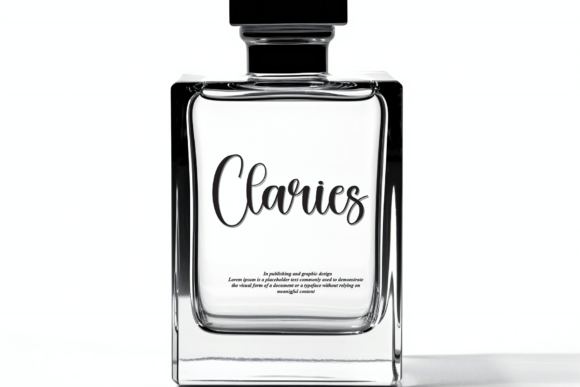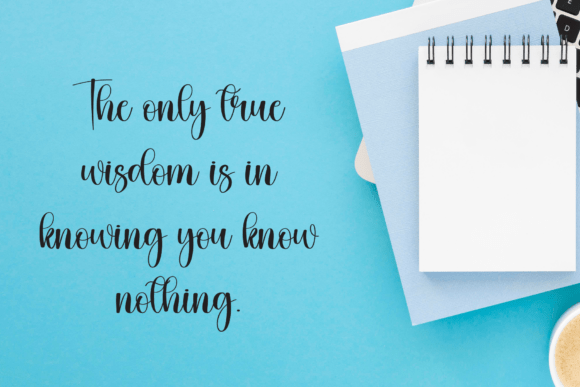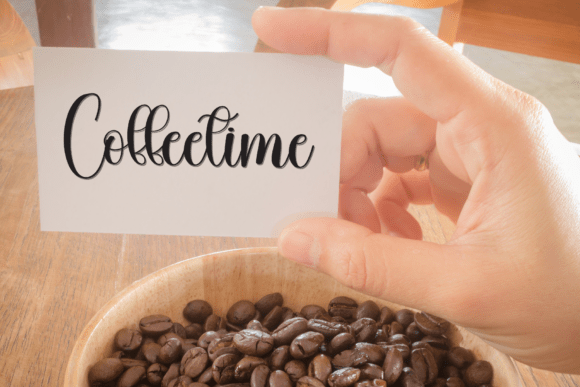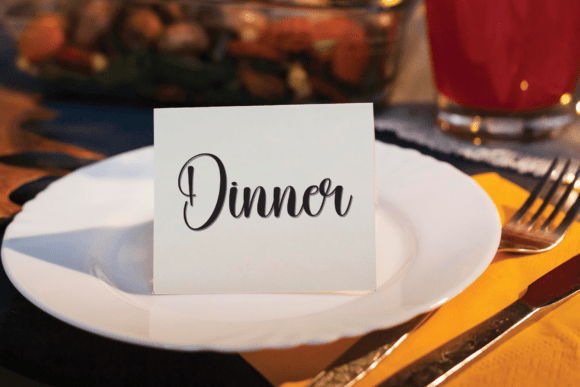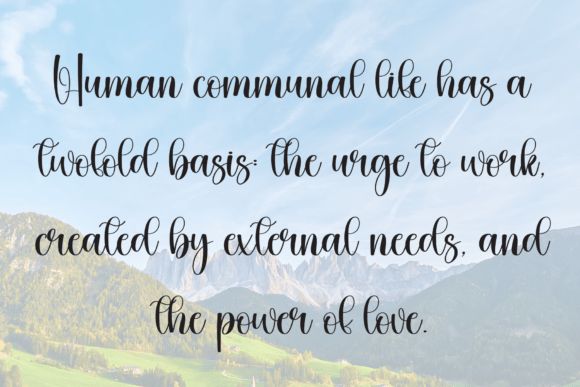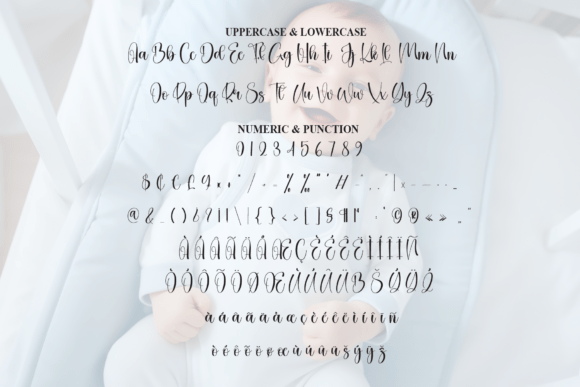
Babyboy Font: A Charming Script Font for Modern Design
In the world of typography, few fonts capture the essence of warmth and modernity as beautifully as the Babyboy Font. This charming script font is designed to evoke a sense of joyful visual movement, making it perfect for a variety of creative projects. In this article, we’ll explore the unique characteristics of the Babyboy Font, its uses, and why it’s a premier choice for designers and crafters.
The Characteristics of Babyboy Font
The Babyboy Font is a stunning example of modern calligraphy. Its thick, grounded strokes and bouncy baseline create a sense of energy and playfulness, making it ideal for designs that require a touch of whimsy. The font’s defining feature is its expansive, looping flourishes that add a level of sophistication and elegance to any design. Additionally, the stylized “drop shadow” effect provides immediate visual depth, making the font stand out in any project.
Uses of Babyboy Font
The Babyboy Font is incredibly versatile and can be used in a variety of creative projects. Some of the most popular uses include:
- Nursery Wall Art: Create beautiful and personalized nursery wall art with the Babyboy Font. The font’s playful and whimsical nature makes it perfect for baby’s name, quotes, and other decorative elements.
- Boutique Baby Product Branding: The Babyboy Font is a great choice for boutique baby product branding. Its modern and elegant design makes it perfect for creating unique and eye-catching brand identities.
- Sentimental Greeting Cards: Add a touch of warmth and personality to your greeting cards with the Babyboy Font. The font’s charming and rhythmic script makes it perfect for creating sentimental and heartfelt messages.
- Creative Lifestyle Marketing: The Babyboy Font can also be used in creative lifestyle marketing campaigns. Its modern and sophisticated design makes it perfect for creating eye-catching advertisements and promotional materials.
Why Choose Babyboy Font?
So, why choose the Babyboy Font for your next project? Here are just a few reasons:
- Unique and Eye-Catching: The Babyboy Font is a unique and eye-catching font that is sure to grab attention. Its modern and elegant design makes it perfect for creating stunning visual effects.
- Versatile: The Babyboy Font is incredibly versatile and can be used in a variety of creative projects. Its playful and whimsical nature makes it perfect for designs that require a touch of personality.
- Easy to Read: Despite its elegant and cursive nature, the Babyboy Font is easy to read and understand. This makes it perfect for designs that require a level of legibility.
Tips for Using Babyboy Font
Here are a few tips for using the Babyboy Font in your next project:
- Use it Sparingly: While the Babyboy Font is beautiful, it can be overwhelming if used excessively. Use it sparingly to create a sense of balance and harmony in your design.
- Pair it with Other Fonts: The Babyboy Font pairs well with other fonts, especially sans-serif fonts. Experiment with different font combinations to create a unique and eye-catching design.
- Experiment with Colors: The Babyboy Font looks stunning in a variety of colors. Experiment with different colors and shades to create a design that pops.
In conclusion, the Babyboy Font is a charming and rhythmic script font that embodies a warm, modern calligraphy personality. Its unique characteristics, versatility, and ease of use make it a premier choice for designers and crafters. Whether you’re creating nursery wall art, boutique baby product branding, or sentimental greeting cards, the Babyboy Font is sure to add a touch of elegance and sophistication to your design.